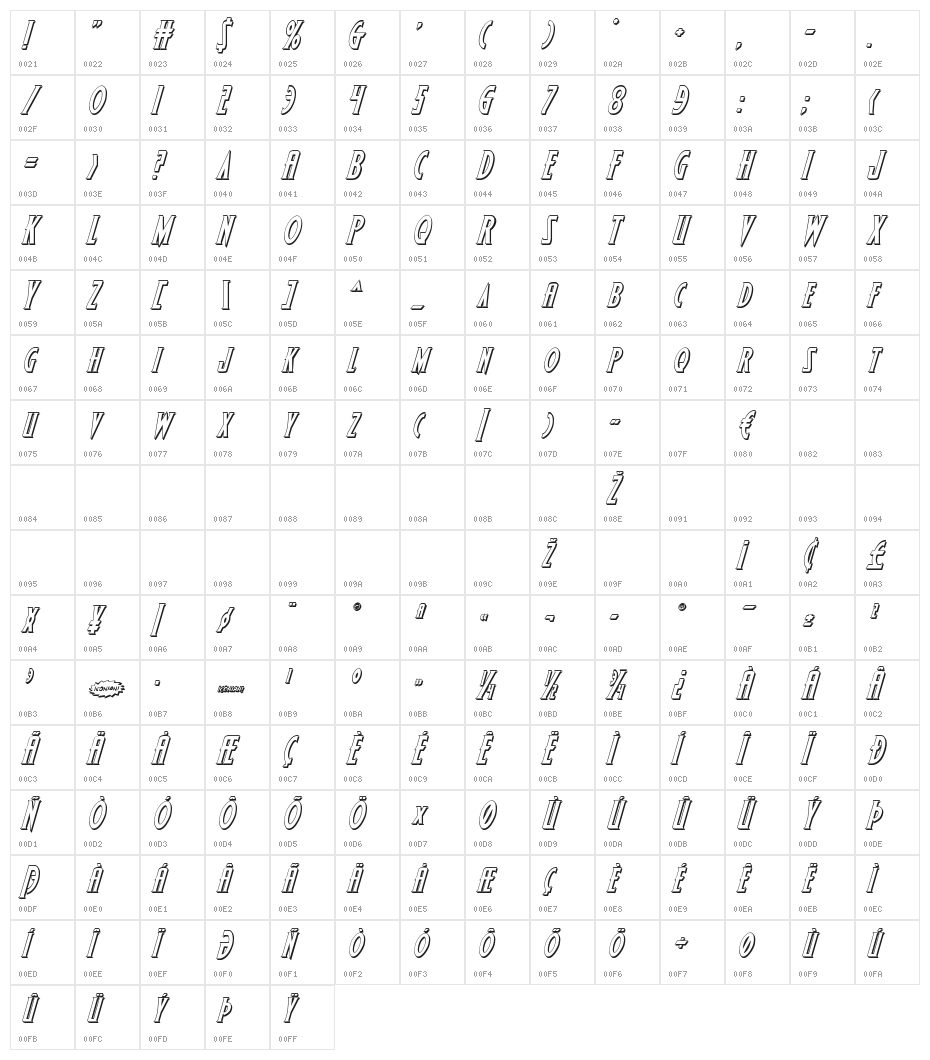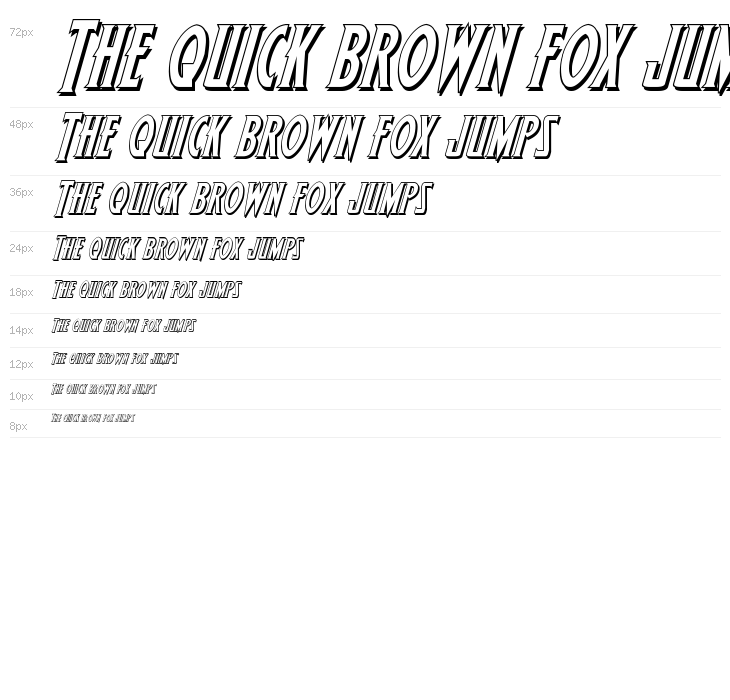
Wolf's Bane 3D Italic Font
Wolf's Bane 3D Italic Description
This font features a bold, dynamic 3D effect with a strong italic slant, creating a sense of movement and energy. The characters are outlined with a shadow that enhances the three-dimensional appearance, making it stand out on any page. The uppercase and lowercase letters maintain a consistent style, with sharp edges and a slightly condensed form that adds to its striking visual impact. The numerals and special characters are designed to complement the alphabet, ensuring a cohesive look across all text. This font is ideal for projects that require a bold statement and a modern, edgy feel.